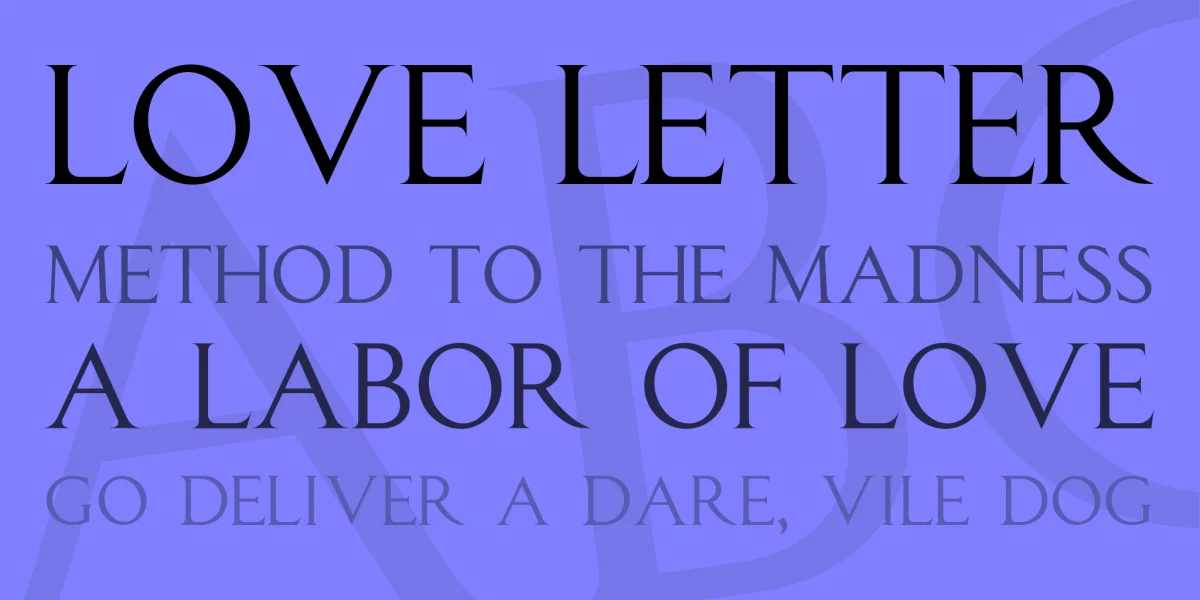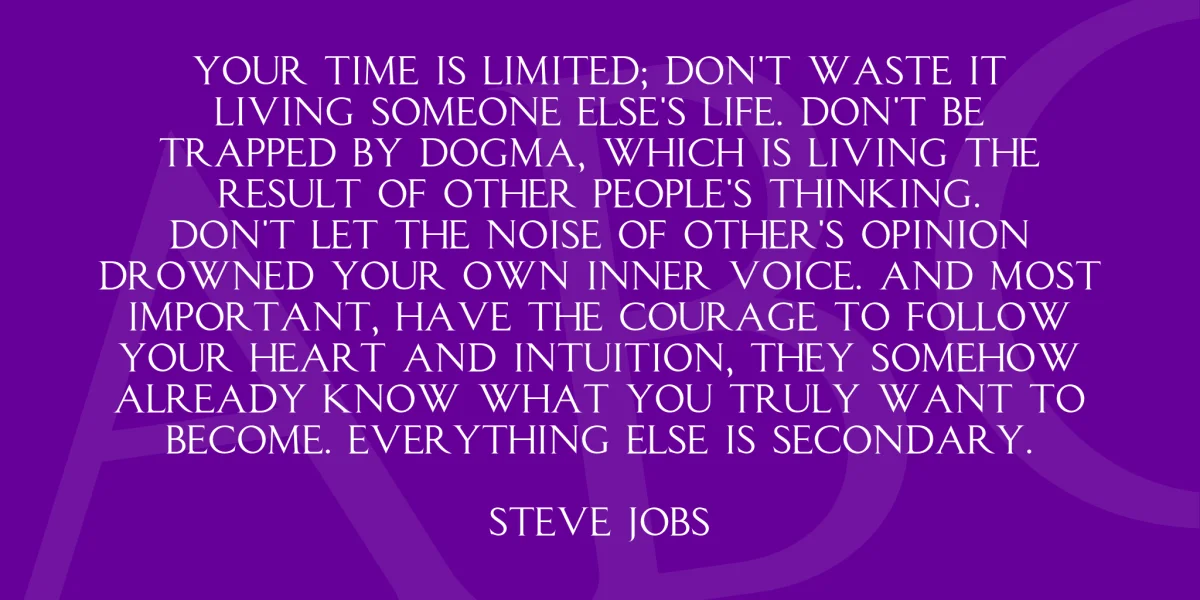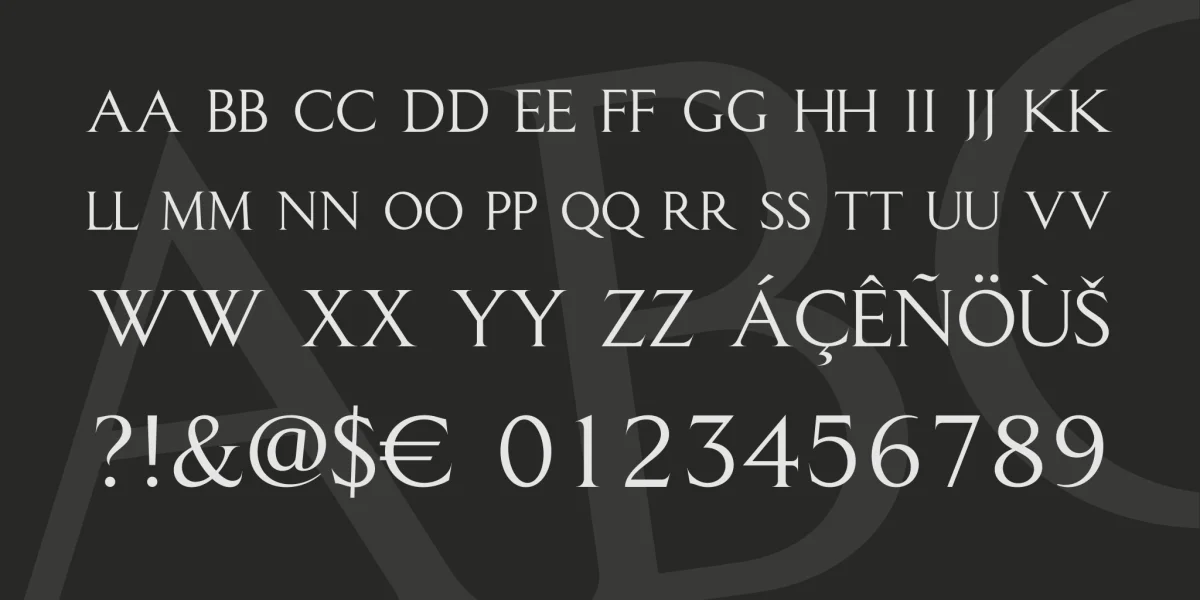
The Palazzo della civiltà italiana (Palace of Italian Civilization) is a monumental building with a square base located in Rome in the EUR or E42 district, the area of the City intended to host the Universal Exposition of Rome in 1942. Plan and designed between 1936 and 1937, its construction began in 1938 and it was inaugurated, still incomplete, in 1940; the works were interrupted in 1943 and then completed between 1951 and 1953, when it hosted the International Agricultural Exhibition. The building has four equal faces with 54 arches per facade (9 in row and 6 in column), a reinforced concrete structure and a travertine lining. 60 meters high and 53 meters wide, it rests on a stepped base.
On the four crowns, the monument shows on three lines, painted in black on the marble and in new lapidary: “A people of poets of artists of heroes of saints of thinkers of scientists of navigators of transmigrators”. The same characters (only E here correctly presents the basic connection also present on the L) is used on the façade of the nearby Palazzo alle fontane (Palace of the Fountains).
Through the study of this new lapidary has been developed the new font EUR42, which compared to the original introduces minimal optical corrections (has been added a light overshoot of the round and pointed letters and has been slightly thickened the horizontal bar of the A). And finally the Greek letters were also added.